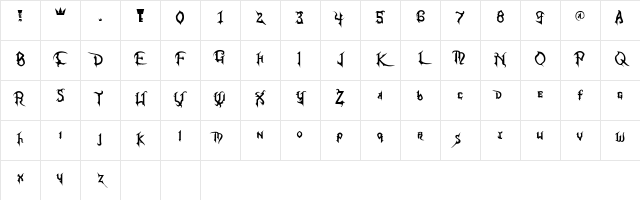
Kingdom Hearts Regular Free Font
Kingdom Hearts Regular
Design Context for Kingdom Hearts
Kingdom Hearts is a composed and adaptable typeface that performs quietly and consistently across a wide range of design contexts.